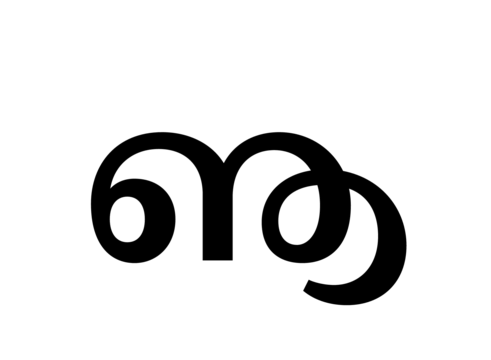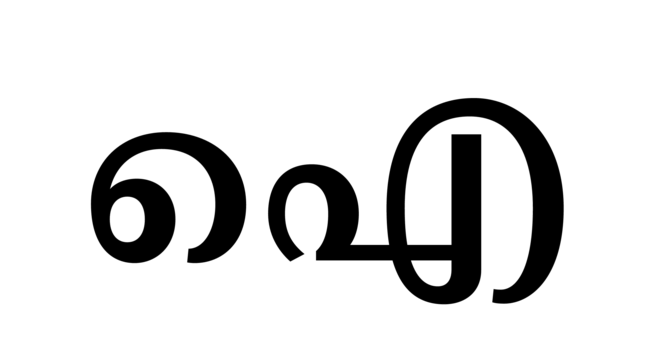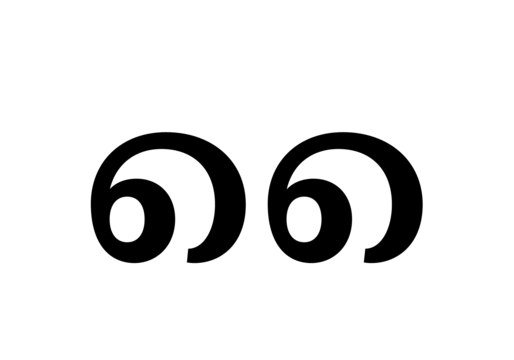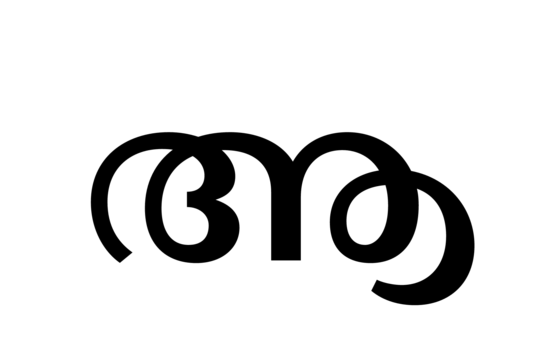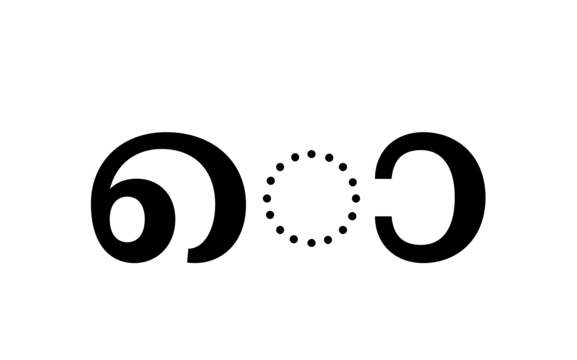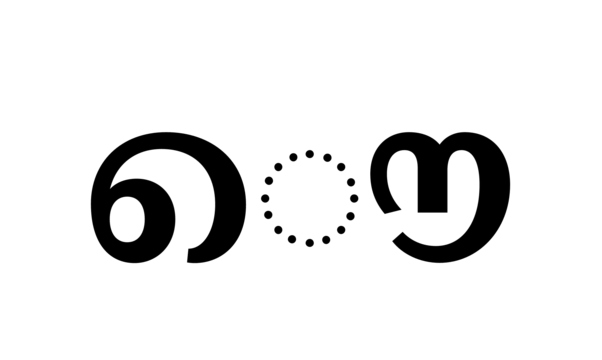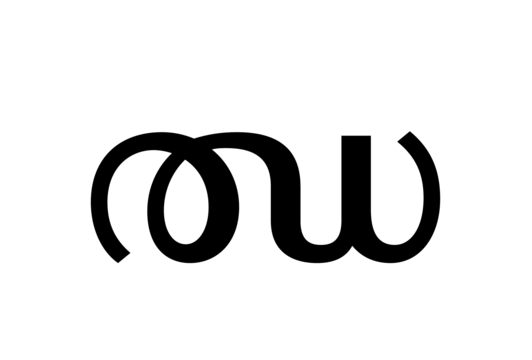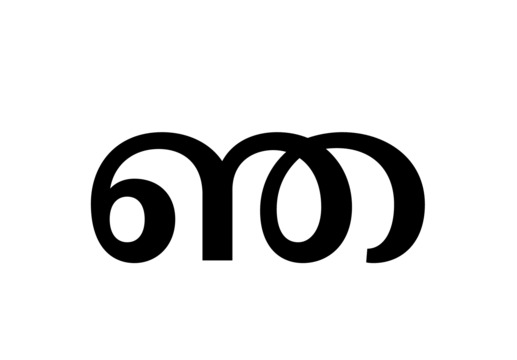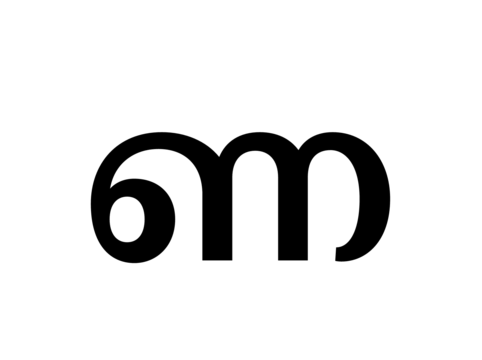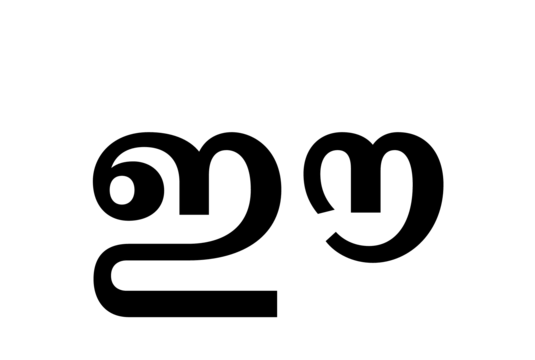
Quilon Malayalam is a text face designed according to traditional Malayalam-script patterns. Its characters are round and include visible stroke contrast; indeed, the play of thicks and thins along lines of text set with in the family creates an even colour that is invaluable for readability. As the weights progress throughout the Quilon Malayalam family, the stroke contrast used increases dramatically. For text set in the Regular weight, the Semibold weight may be the best choice to use for emphasising individual words; the family’s Bold weight is best reserved for headlines.
| Family Name | Quilon Malayalam |
| Designer(s) | Jonny Pinhorn |
| Classification | Serif |